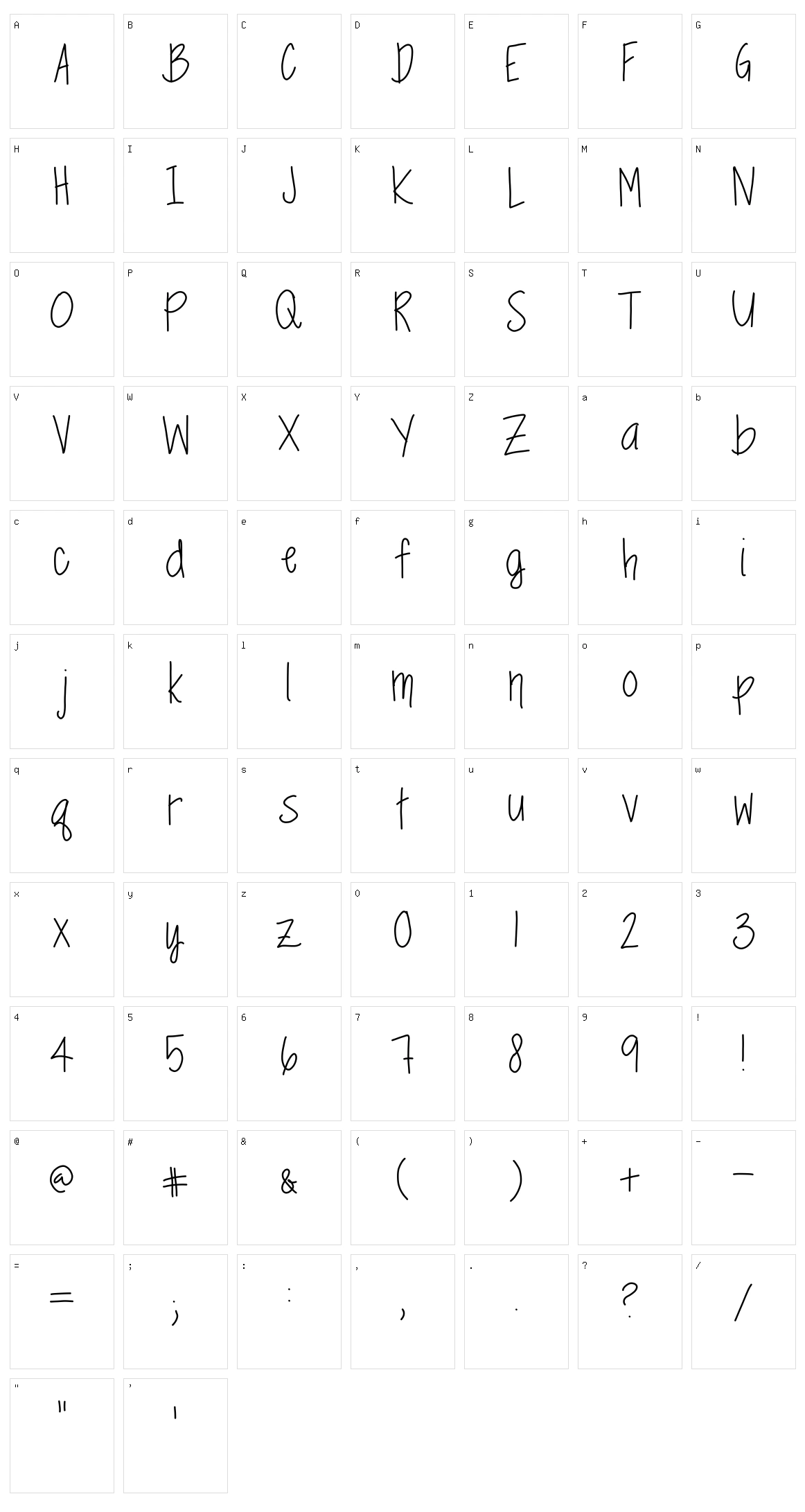
The free font Springtime Blues is carefully designed by Sabrina Schleiger, showcasing a thoughtful balance of creativity and usability and falls under the Script font style. When you download the ZIP file, it contains only 16.42 KB of font files, making it lightweight and quick to download. Please review the license details below to understand permitted usage and distribution rights. If license information is not available, we recommend using this font for personal projects only or contacting the author directly for commercial usage permissions.